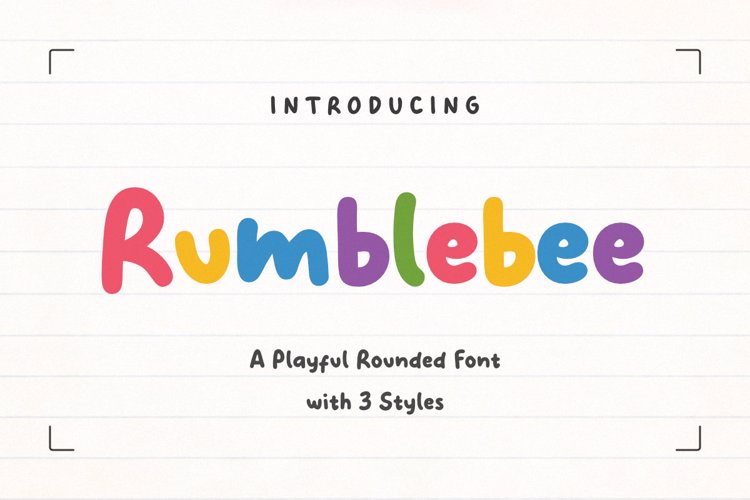
Rumblebee Font
3 font family styles
Rough Style
Outline Style
Meet Rumblebee, a playful rounded display font that captures the warmth of handwritten lettering with smooth, chunky shapes and an irresistibly friendly rhythm. Its rounded construction, open counters, and slightly organic proportions create typography that feels approachable, energetic, and easy to read, making every headline look joyful without appearing overly childish.